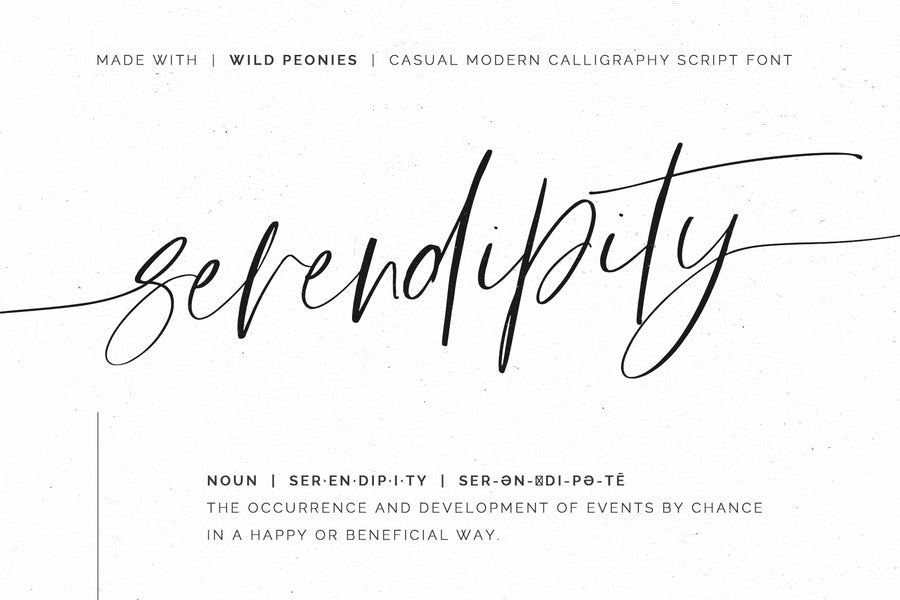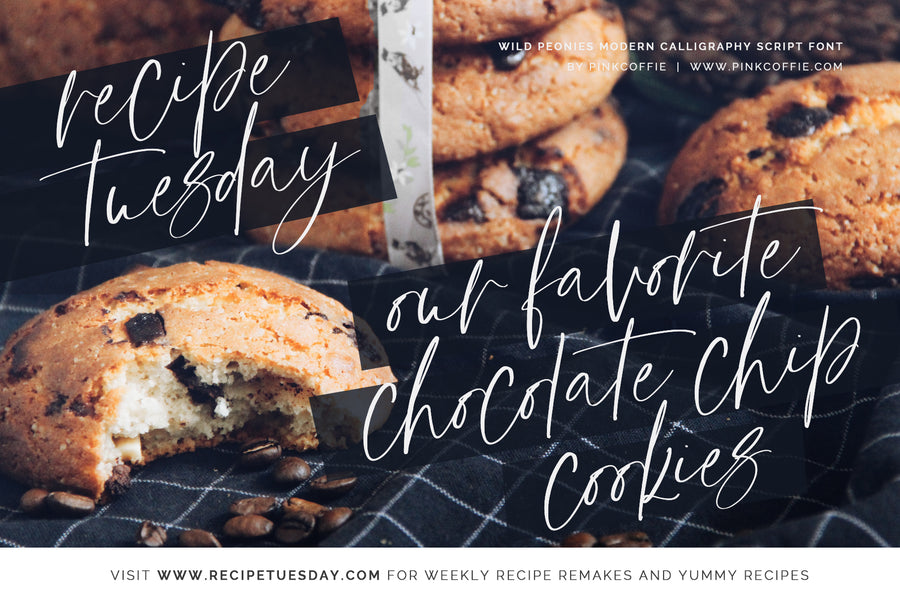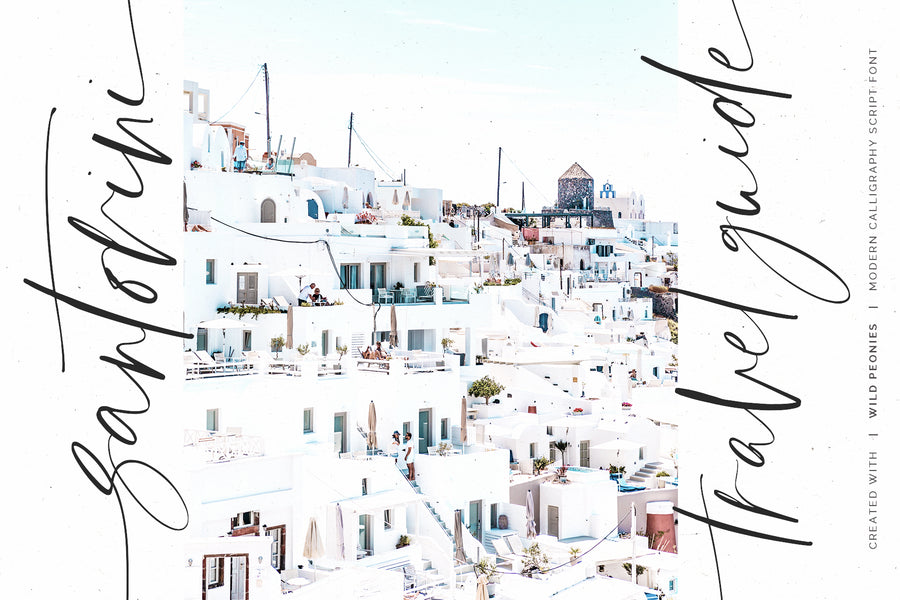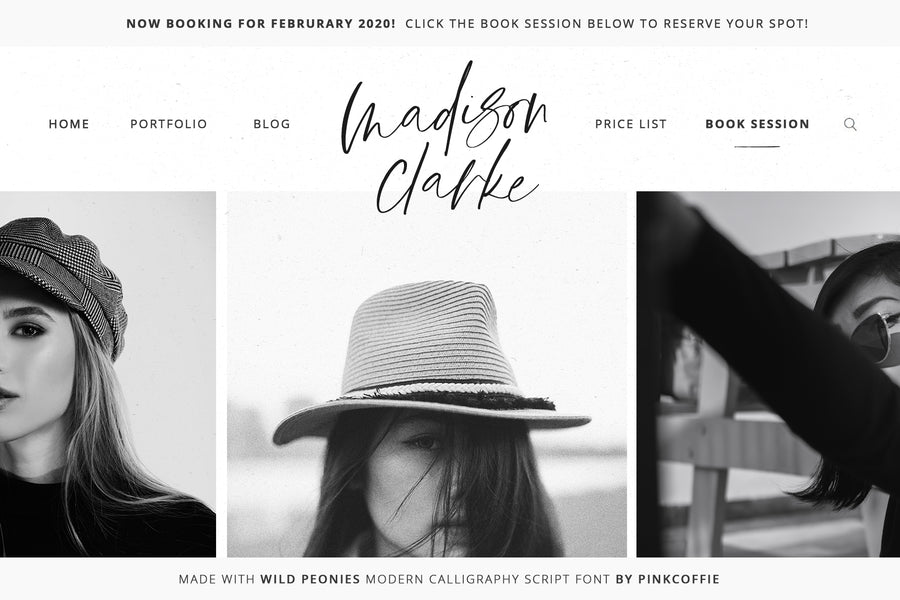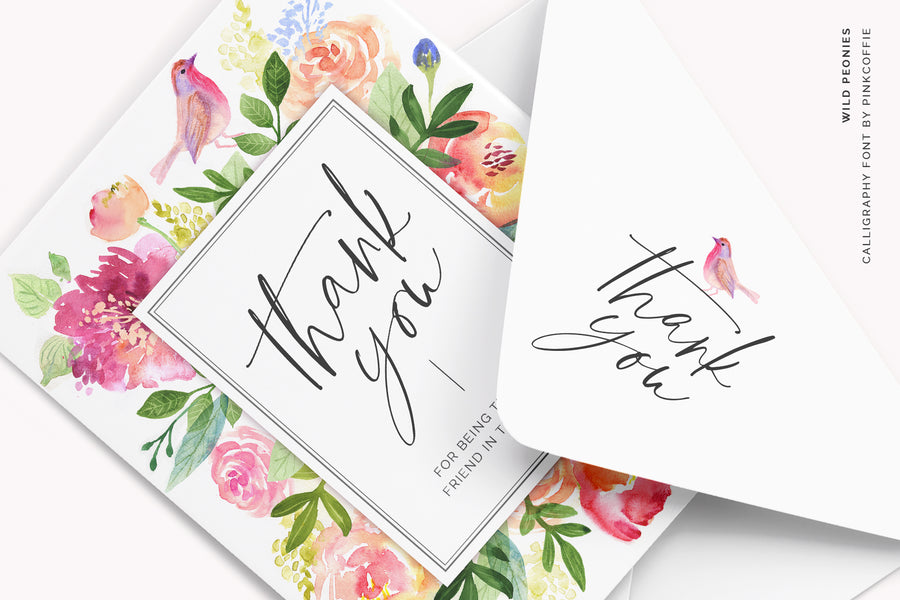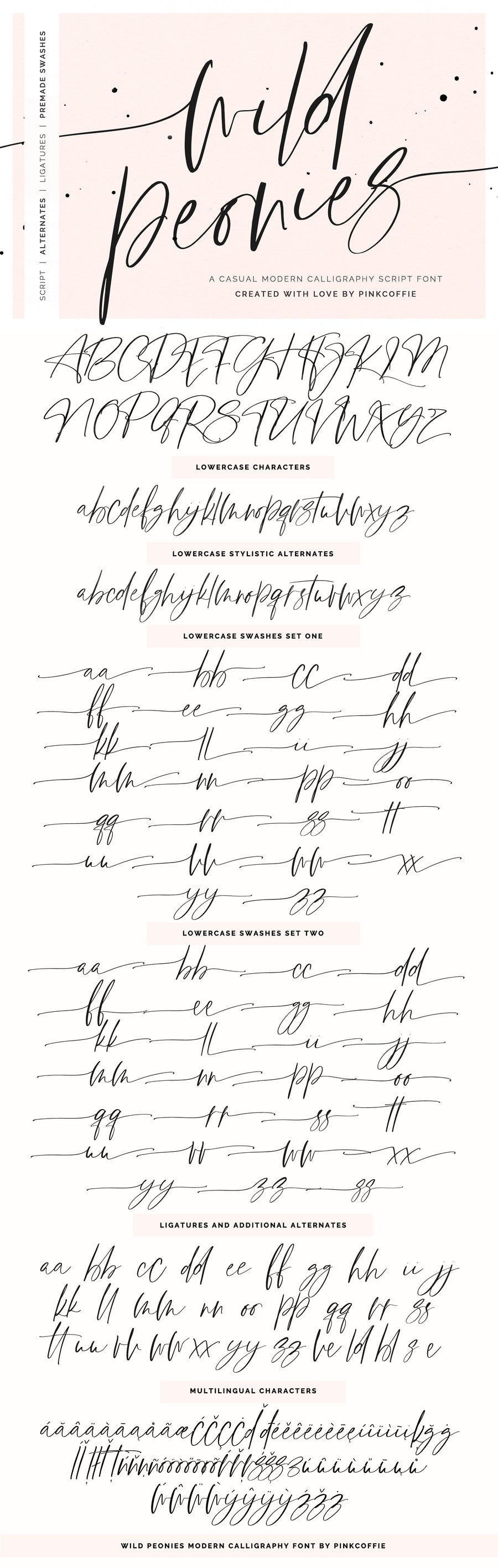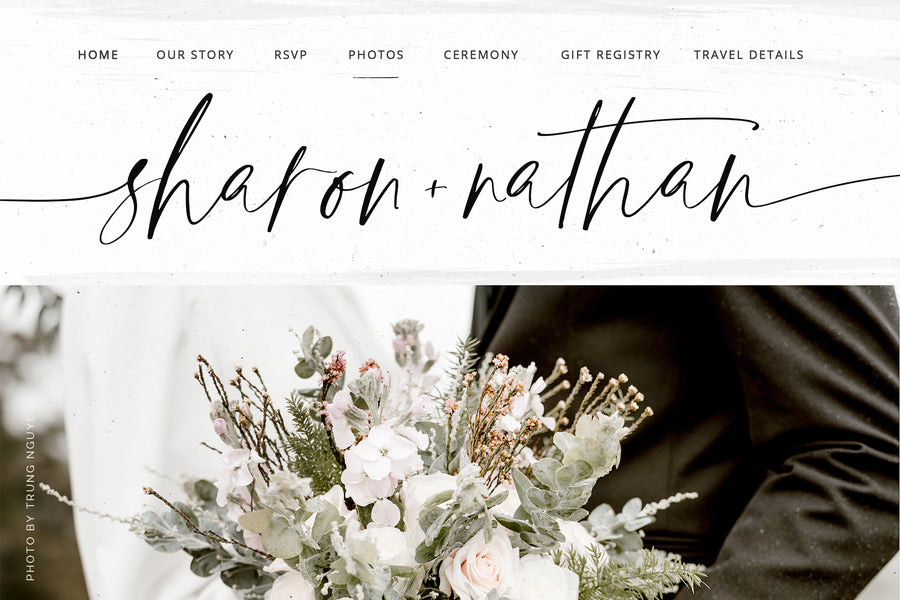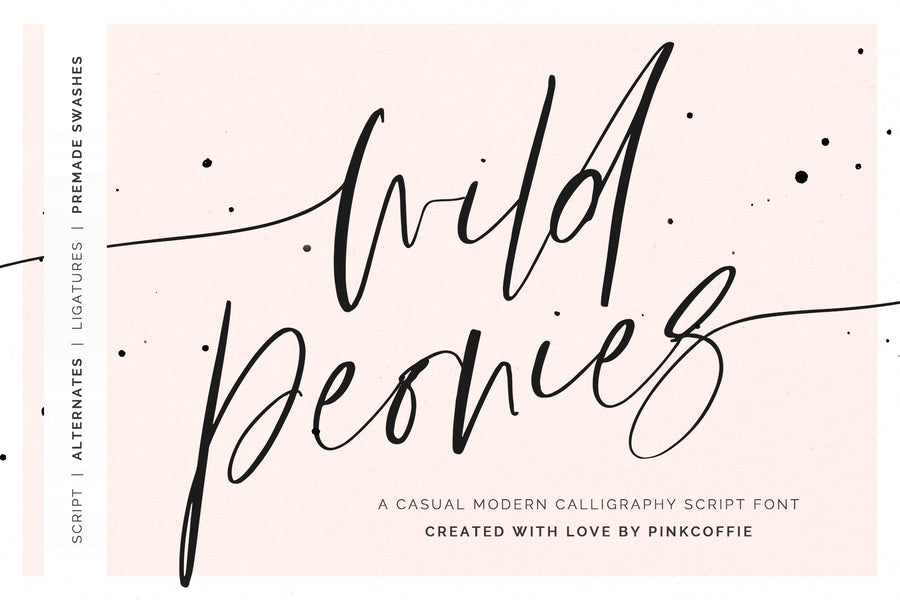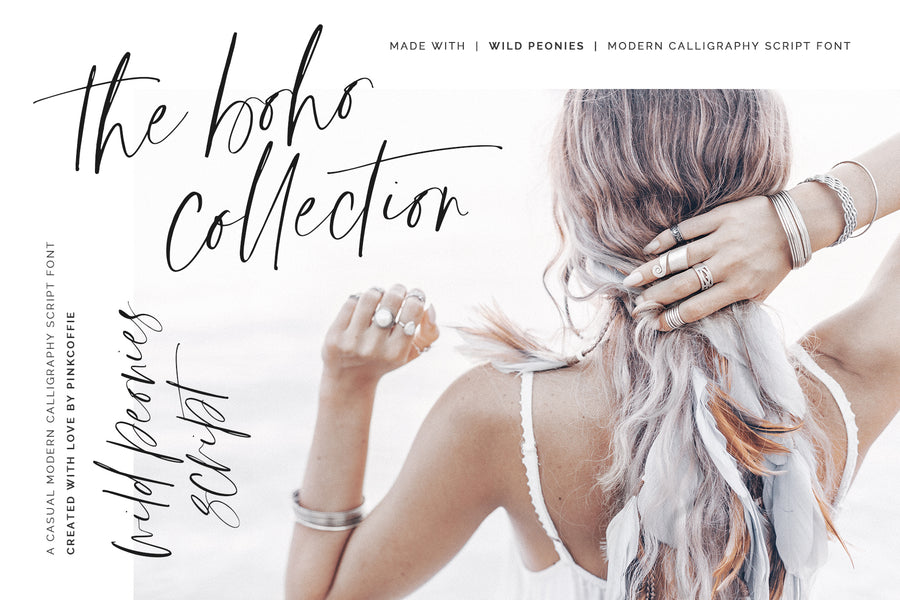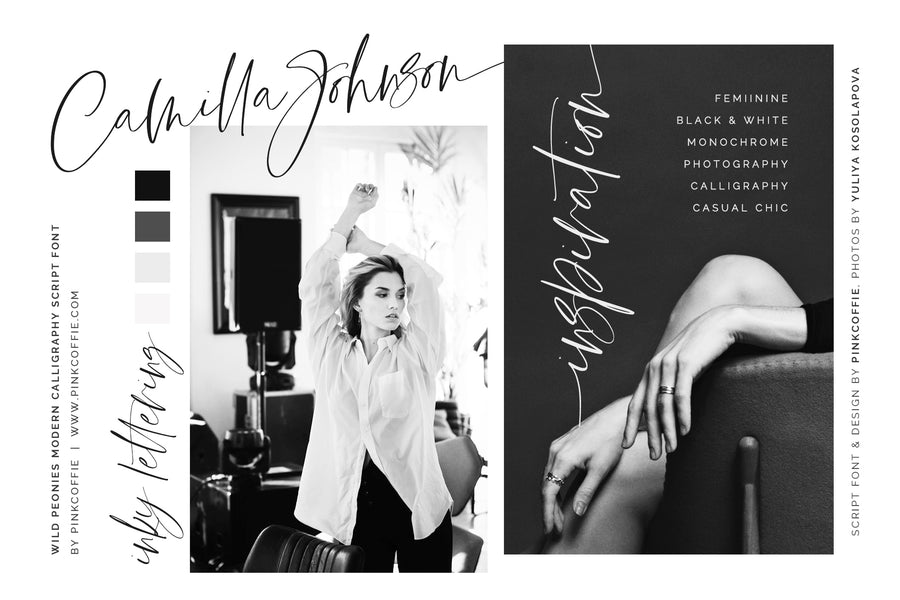
Wild Peonies | Stylish Modern Font
Say hello to Wild Peonies, a stylish modern calligraphy script with a whole lot of wilderness and character. ❤
Wild Peonies includes all regular uppercase and lowercase characters, numerals and punctuation, a full set of lowercase stylistic alternates, double-letter ligatures and beginning and ending premade swashes for both the lowercase and lowercase alternates.
Like all my other fonts, Wild Peonies includes multilingual support and the following multilingual characters: